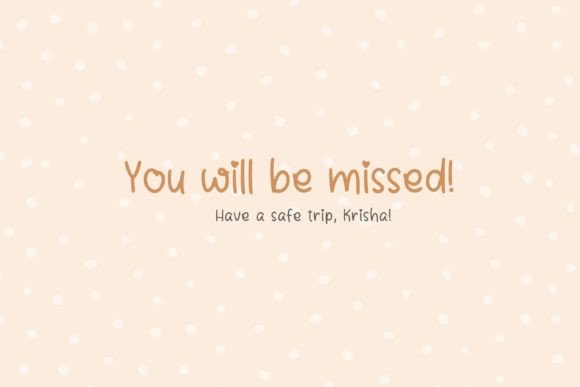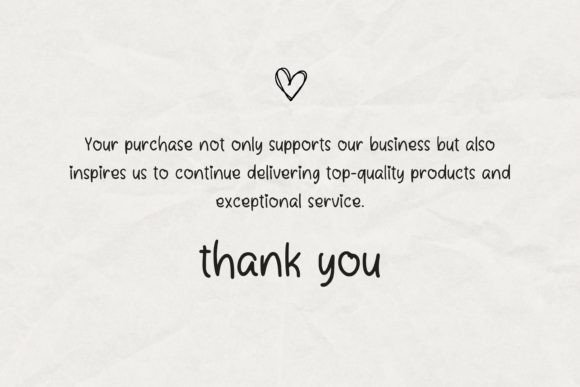
Introduction to Meliowra Font
Have you ever stared at a blank canvas, waiting for that perfect spark to ignite your creative project? It’s in those moments that we’re reminded of the importance of having the right design resource. For designers and artists, the right font can be the difference between a good design and a great one. That’s where the Meliowra Font comes in – a delightful, whimsical handwritten font that’s sure to bring a touch of magic to your next creative endeavor.
With its high-quality design and transparent background, the Meliowra Font is the perfect addition to any project, from crafting inviting greeting cards to designing distinctive shop price lists. And the best part? This amazing font is available for free download, making it accessible to designers of all levels. Whether you’re a seasoned pro or just starting out, the Meliowra Font is a valuable asset that’s sure to elevate your designs and take them to the next level.
Key Features of Meliowra Font
- High-quality design resource for creative projects, ideal for digital and print media.
- Transparent background, making it easy to use in various design scenarios.
- The Meliowra Font is a unique and creative addition to any design project, offering a distinctive aesthetic.
- Supports a wide range of languages, making it a versatile resource for designers working on multilingual projects.
Honest Review: Meliowra Font
I recently had the chance to work with the Meliowra Font, and I must say it’s been a game-changer for my creative projects. The high quality of this design resource has impressed me, and I’ve found it to be a great addition to my design arsenal.
Here are some of the things that I love about the Meliowra Font: ✨
- Wide range of styles and weights available, making it perfect for creating visually appealing designs.
- Transparent background, making it easy to combine with other design elements.
However, I do have a few minor complaints: ⚠️
- Some of the characters may be a bit too bold for certain designs, so be mindful of that when choosing the font.
- The font may not be suitable for very small text sizes, as it can become difficult to read.
Overall, I’m really impressed with the Meliowra Font and would definitely recommend it to other designers. Its high quality and versatility make it a valuable addition to any design resource library.
Meliowra Font is a high-quality, versatile design resource ideal for various creative projects. With a transparent background, it offers endless possibilities for customization.
Experiment with different font sizes, colors, and combinations to achieve unique and eye-catching designs. Use it in conjunction with other design resources to elevate your creative project.
Meliowra Font is suitable for a wide range of applications, including:
- Brand identity and logo design
- Graphic design and visual marketing
- Print and digital publications